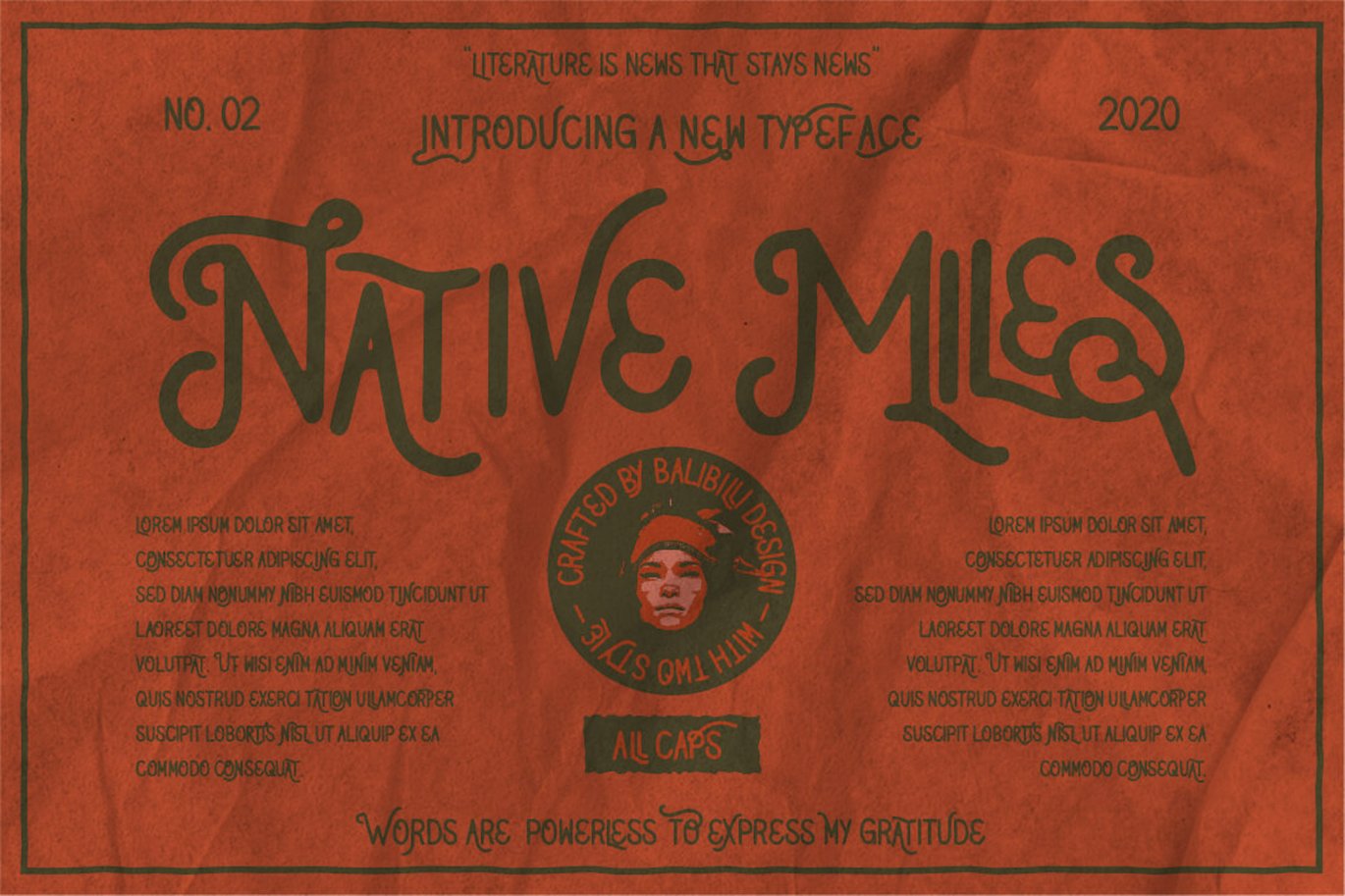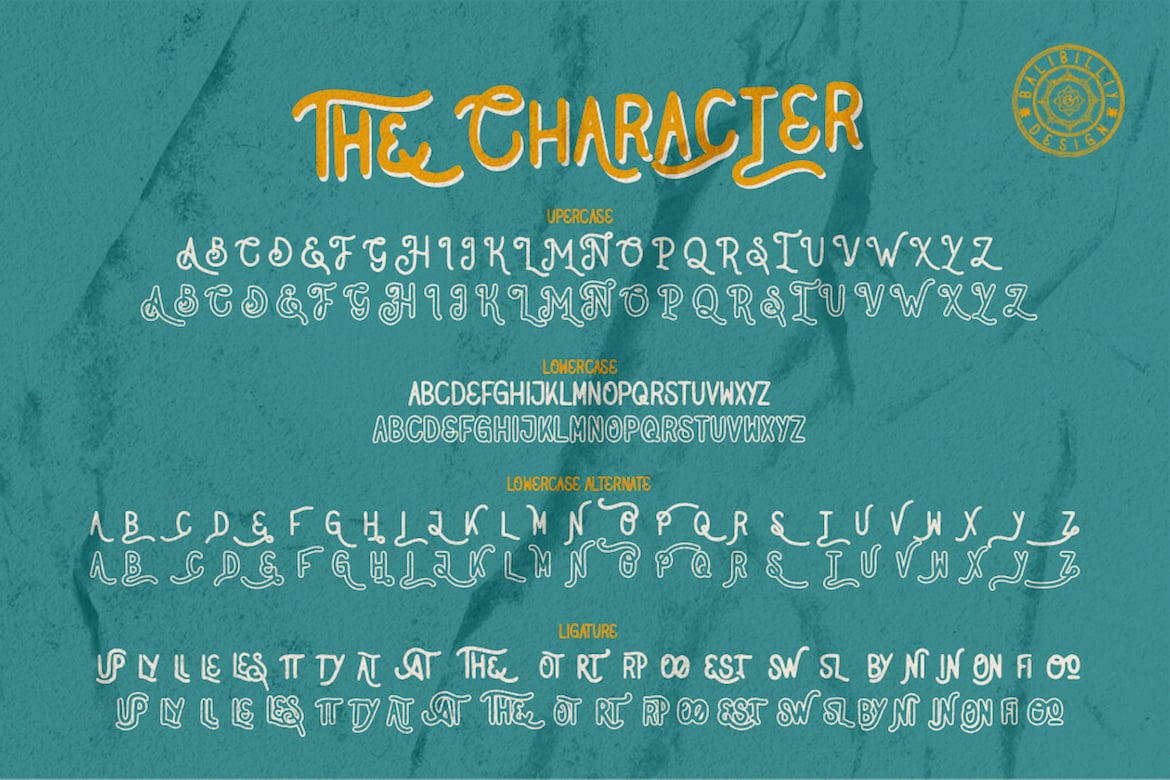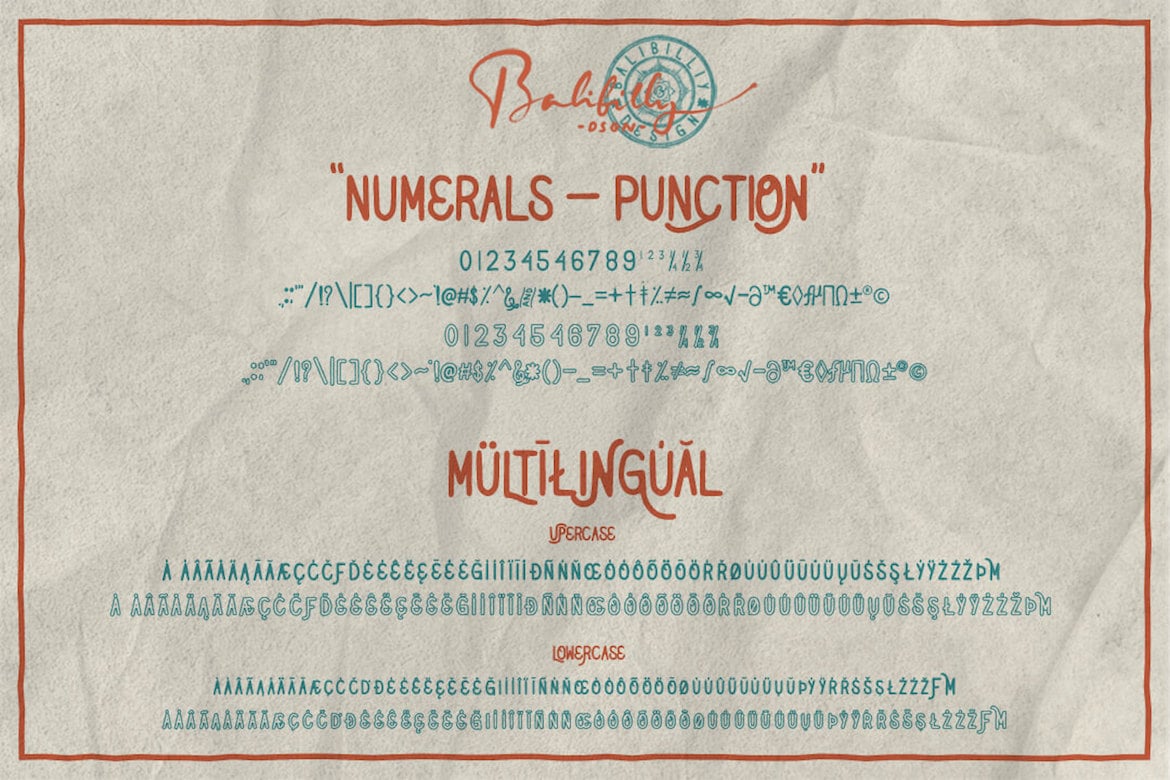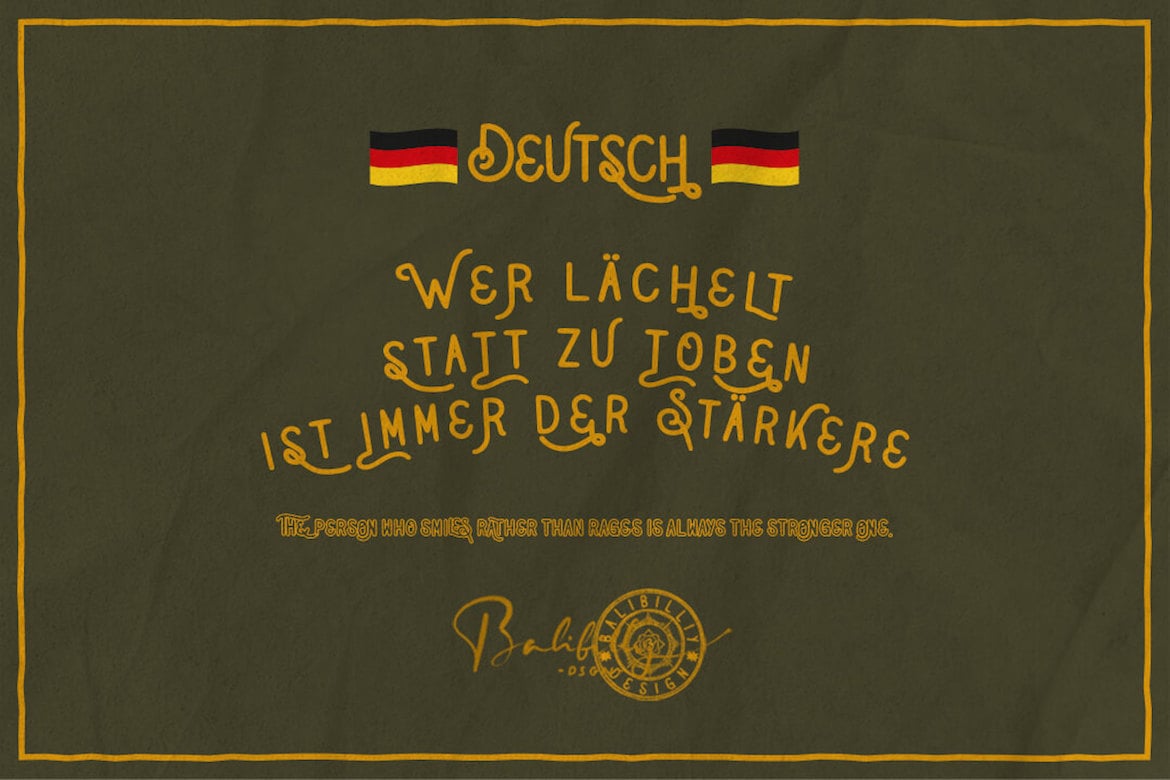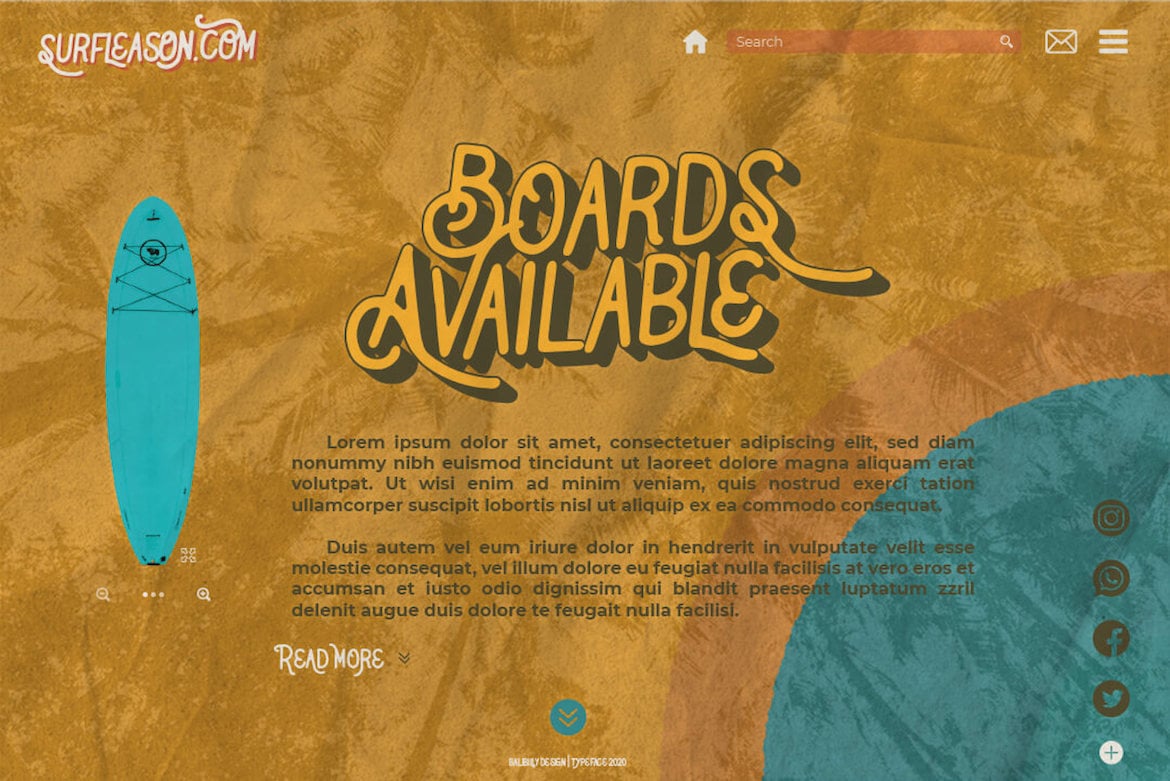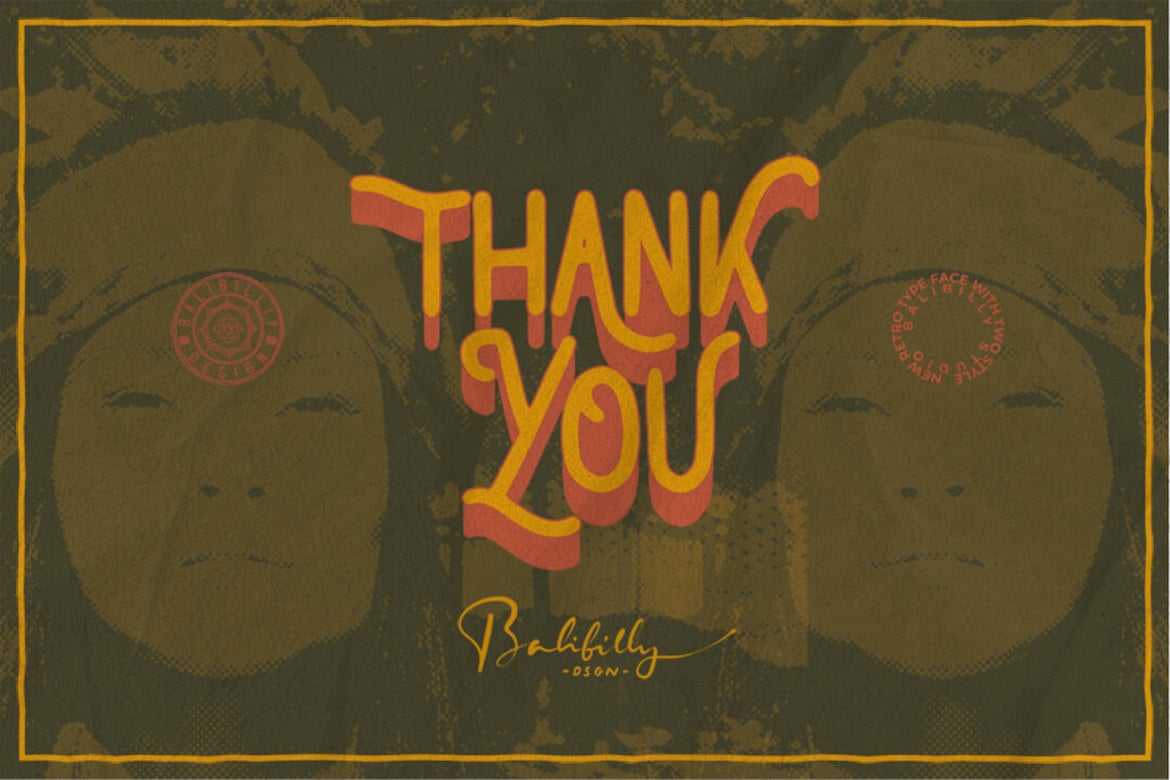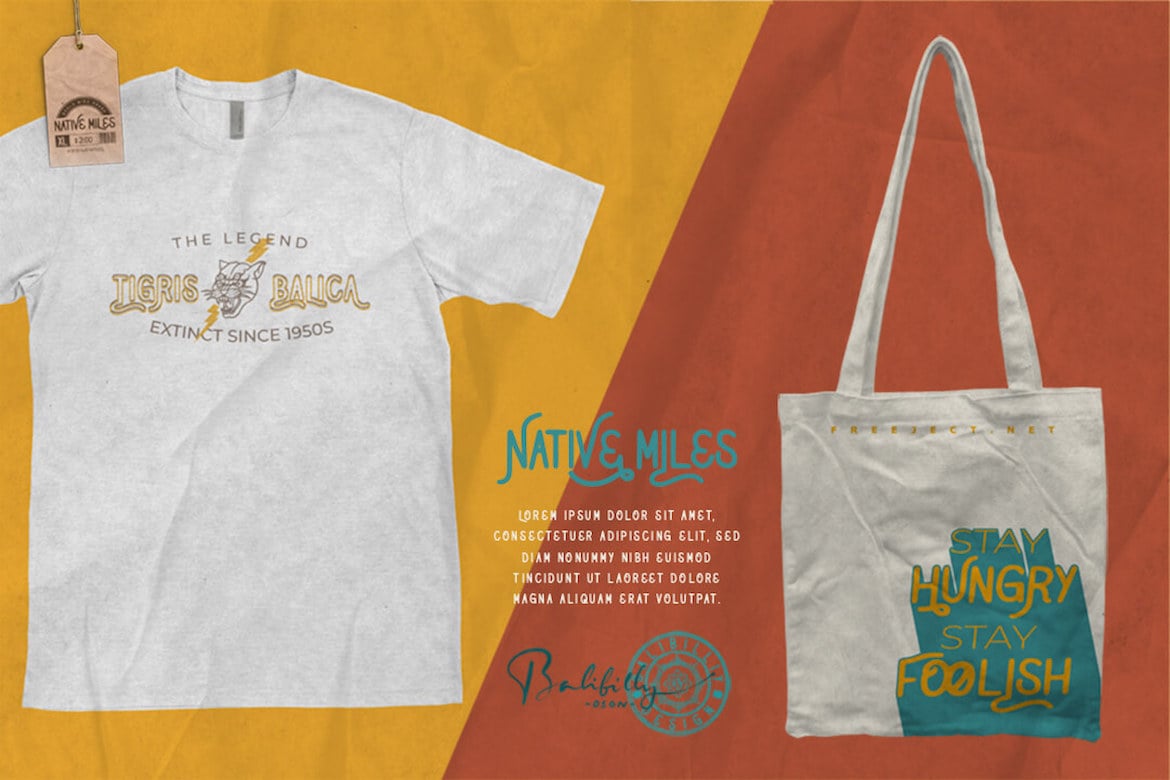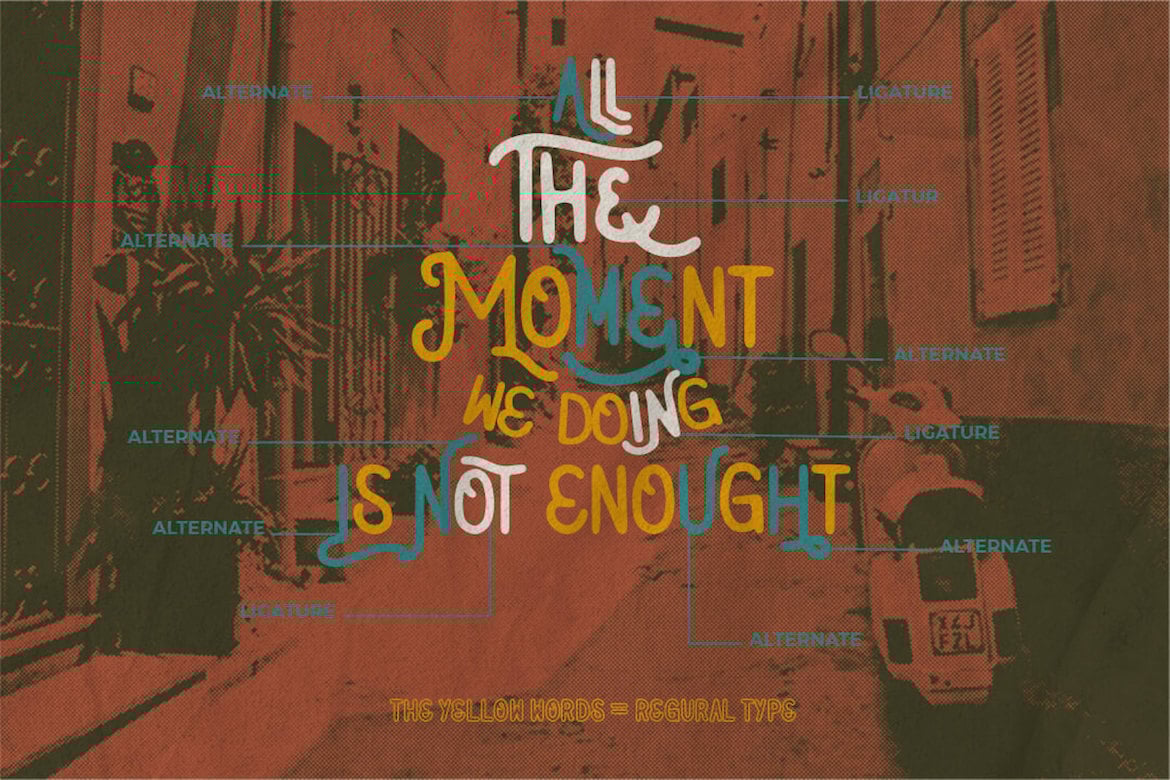
Native Miles – Vintage Fonts
Native Miles is a vintage display sans serif font with 2 different styles, regular and outline. This font is dedicated to the designer and company that need a retro vintage style and unique text.
Native Milles Features:
- upper case
- lower case
- open type feature
- authentic ligatures
- numeral
- punctuation
- multilingual support.
Strikingly versatile for branding logotype, logo badges, digital lettering arts, apparel, poster, website layout, magazine, card, signs, advertising design, and any vintage design needs.